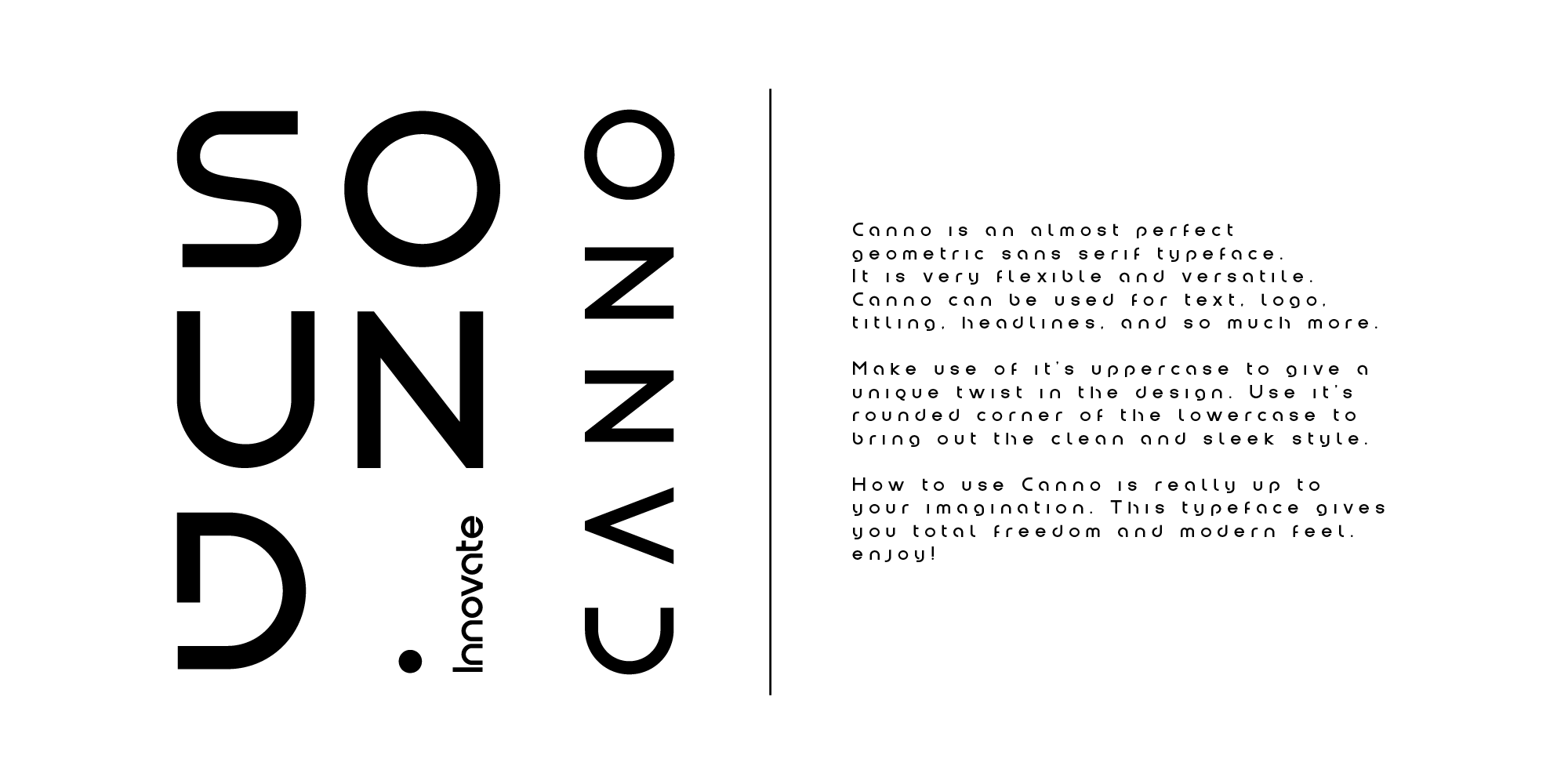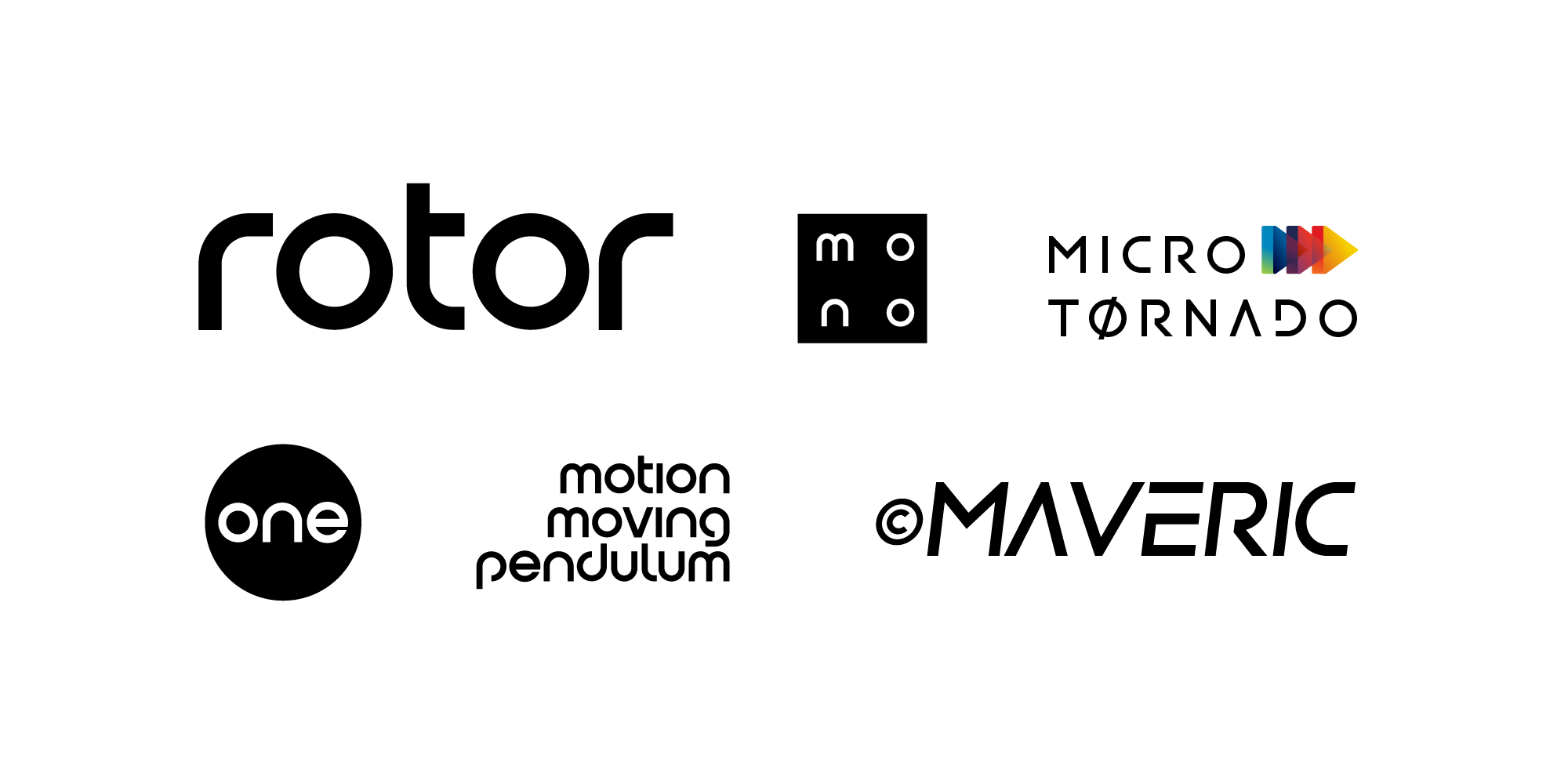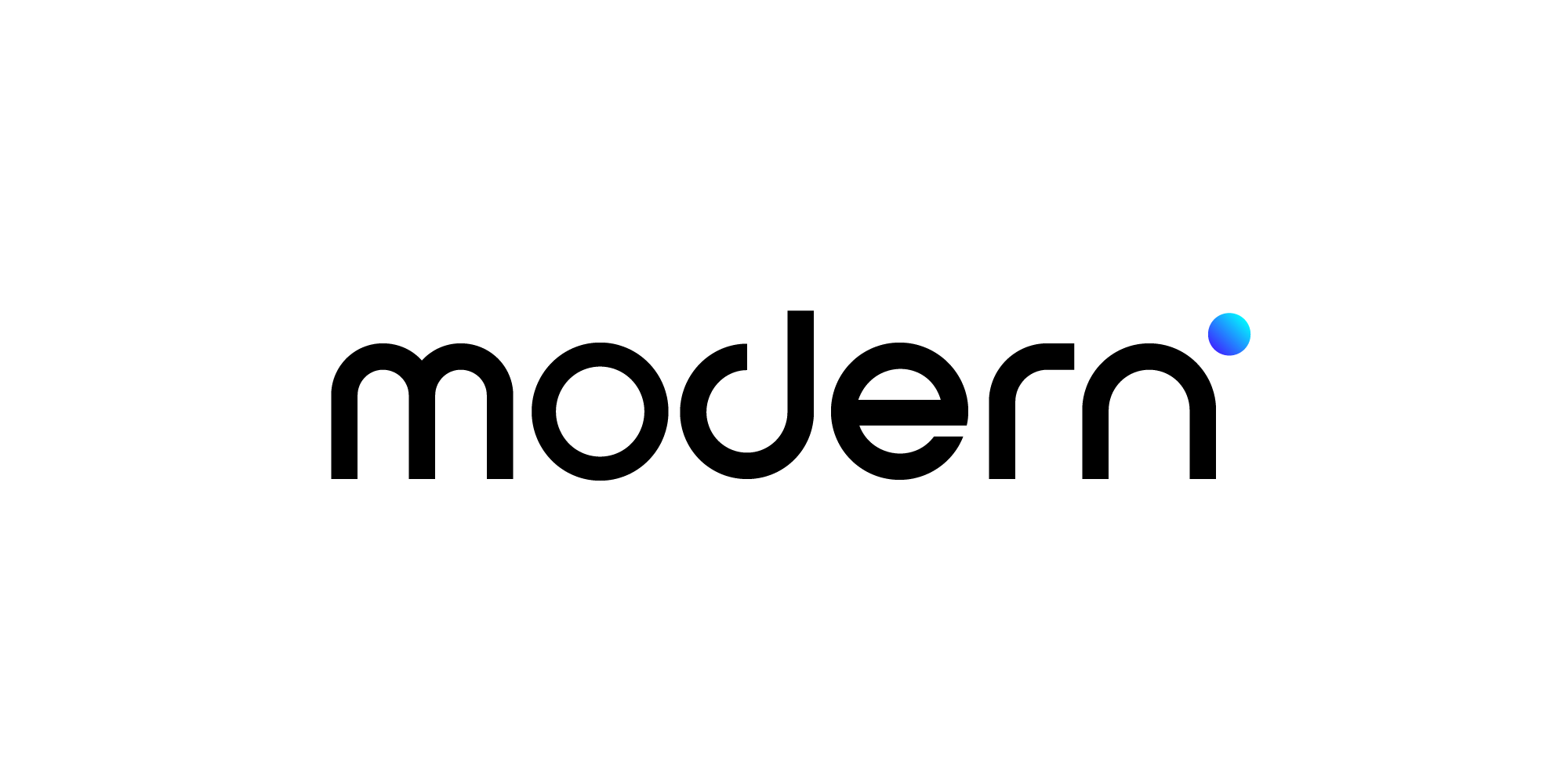
MBF Canno
Canno is a versatile font with it’s clean and sleek build. Rounded lowercase emphasize the modern and clean feel. The overall typeface is geometric to bring order and alignment in between the letters It is best used as logo, headline, and title.